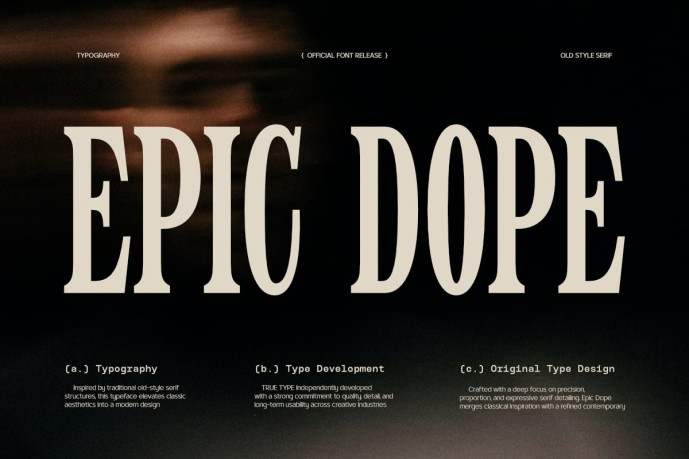
Epic Dope Font
Epic Dope Font is an elegant condensed serif typeface that blends classic sophistication with modern character. Featuring tall proportions, refined high-contrast strokes, and distinctive serif details, it creates a strong visual impact while maintaining excellent readability.
Perfect for luxury branding, logos, editorial headlines, packaging, fashion projects, restaurant identities, and premium marketing materials. Its narrow structure allows for bold, space-efficient compositions, making every design feel stylish, confident, and memorable.